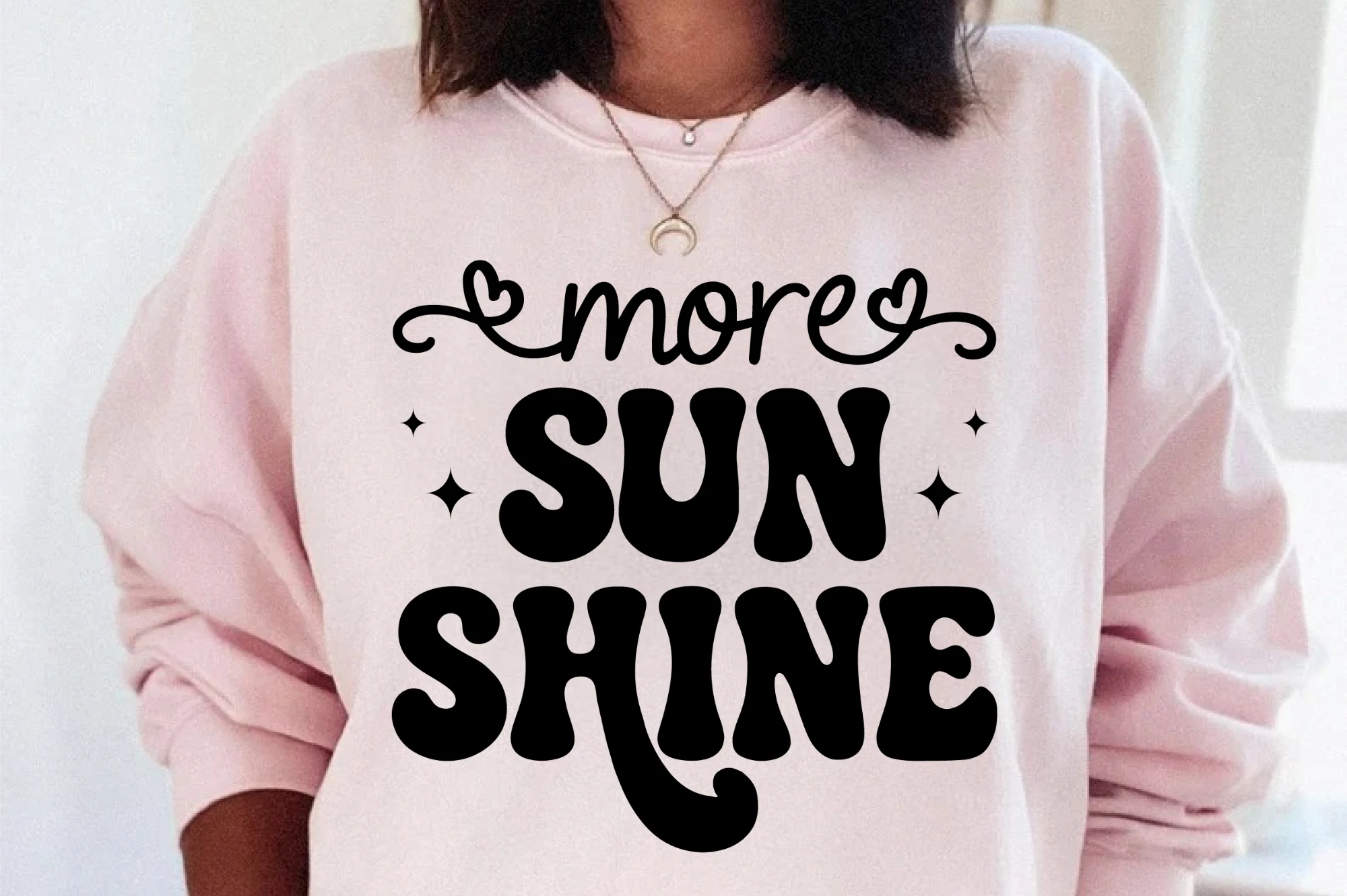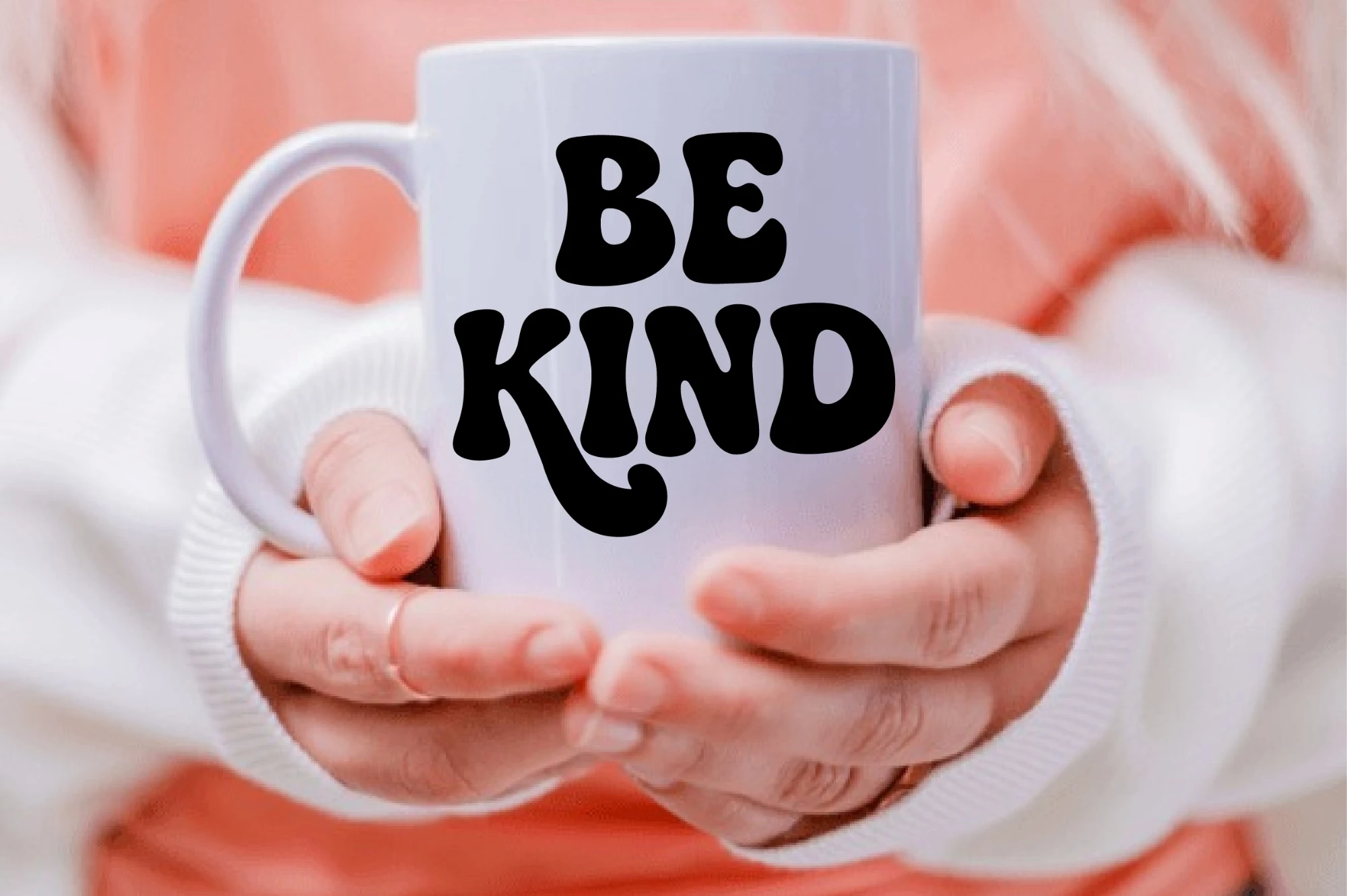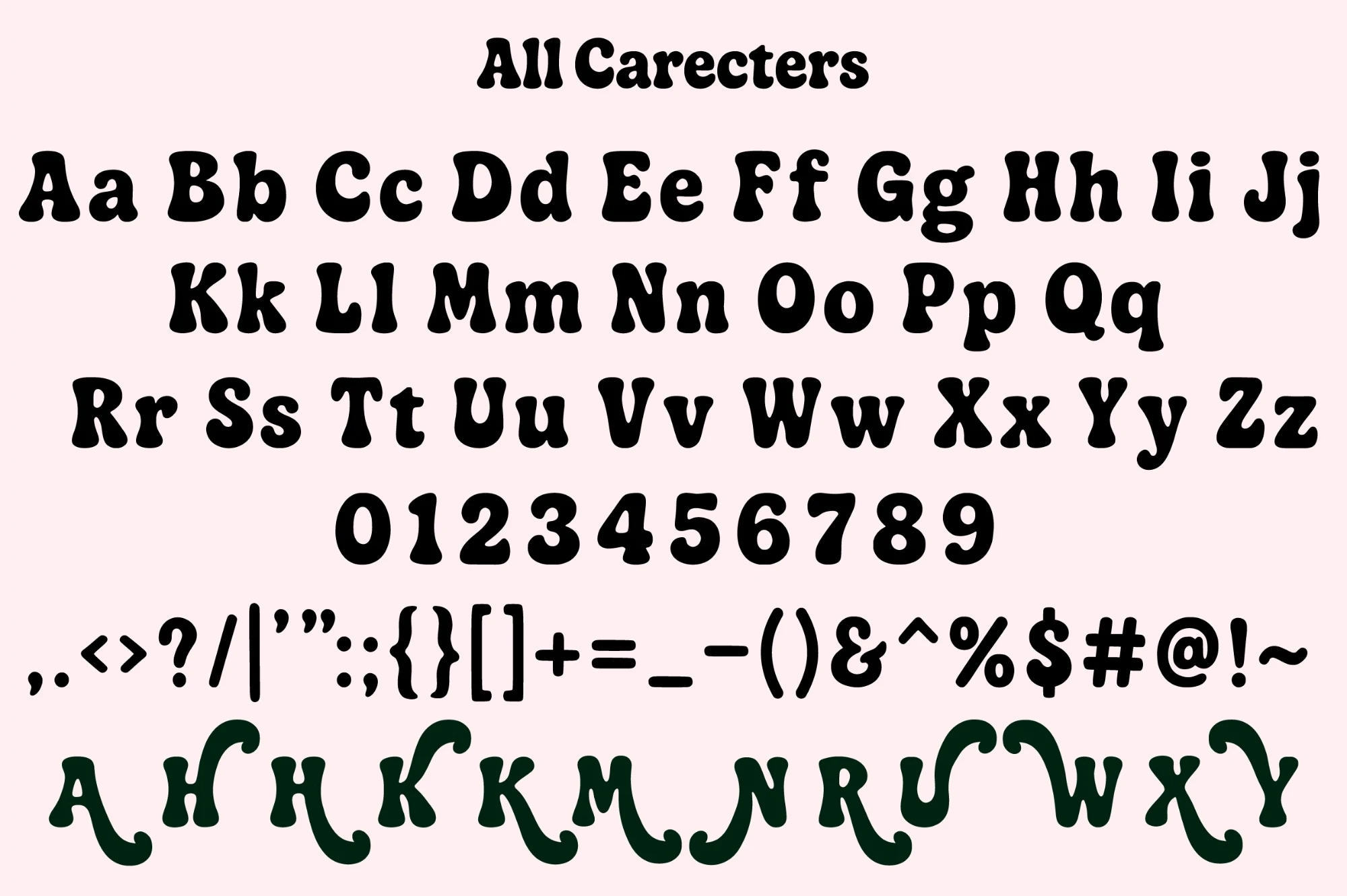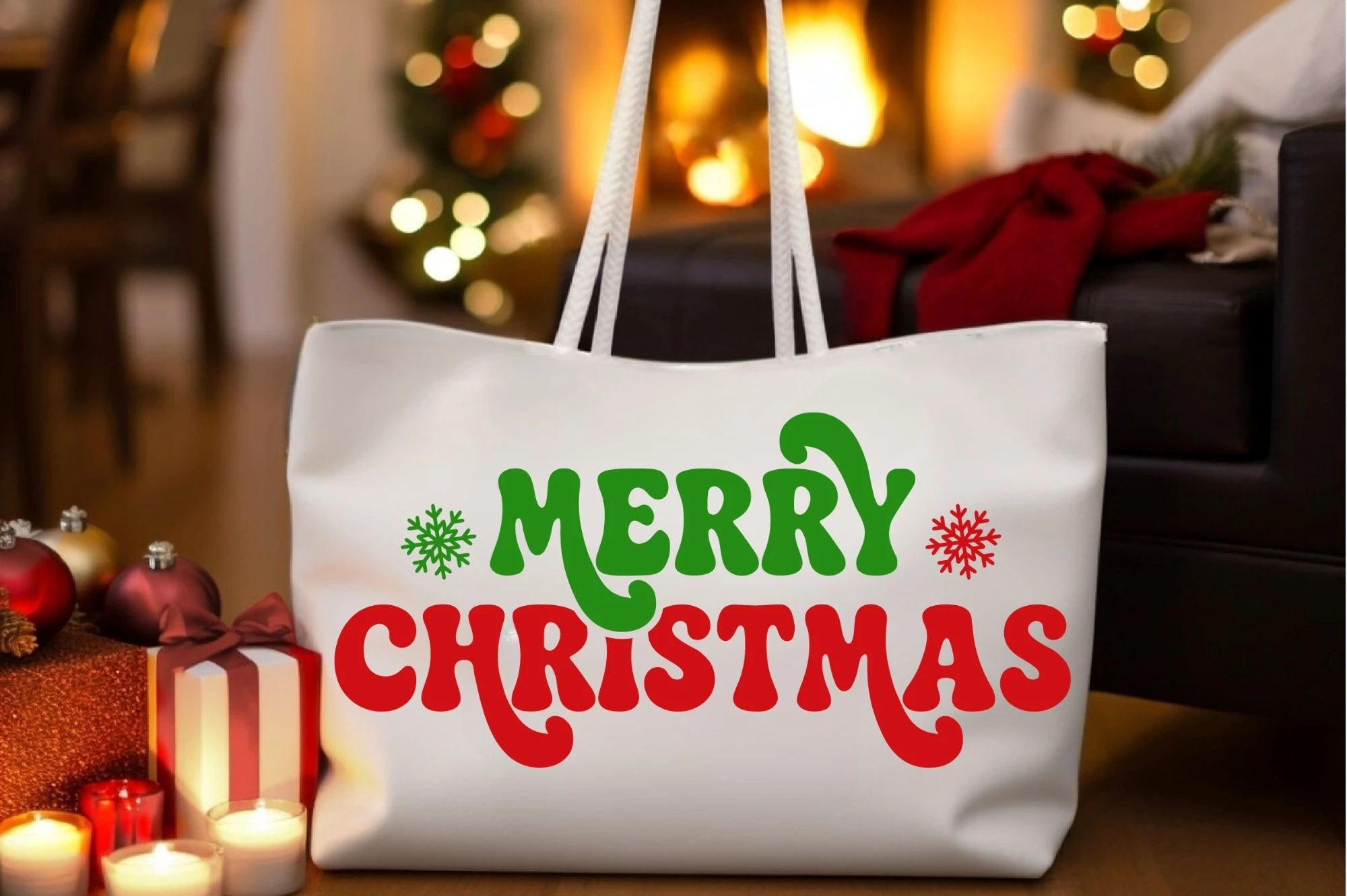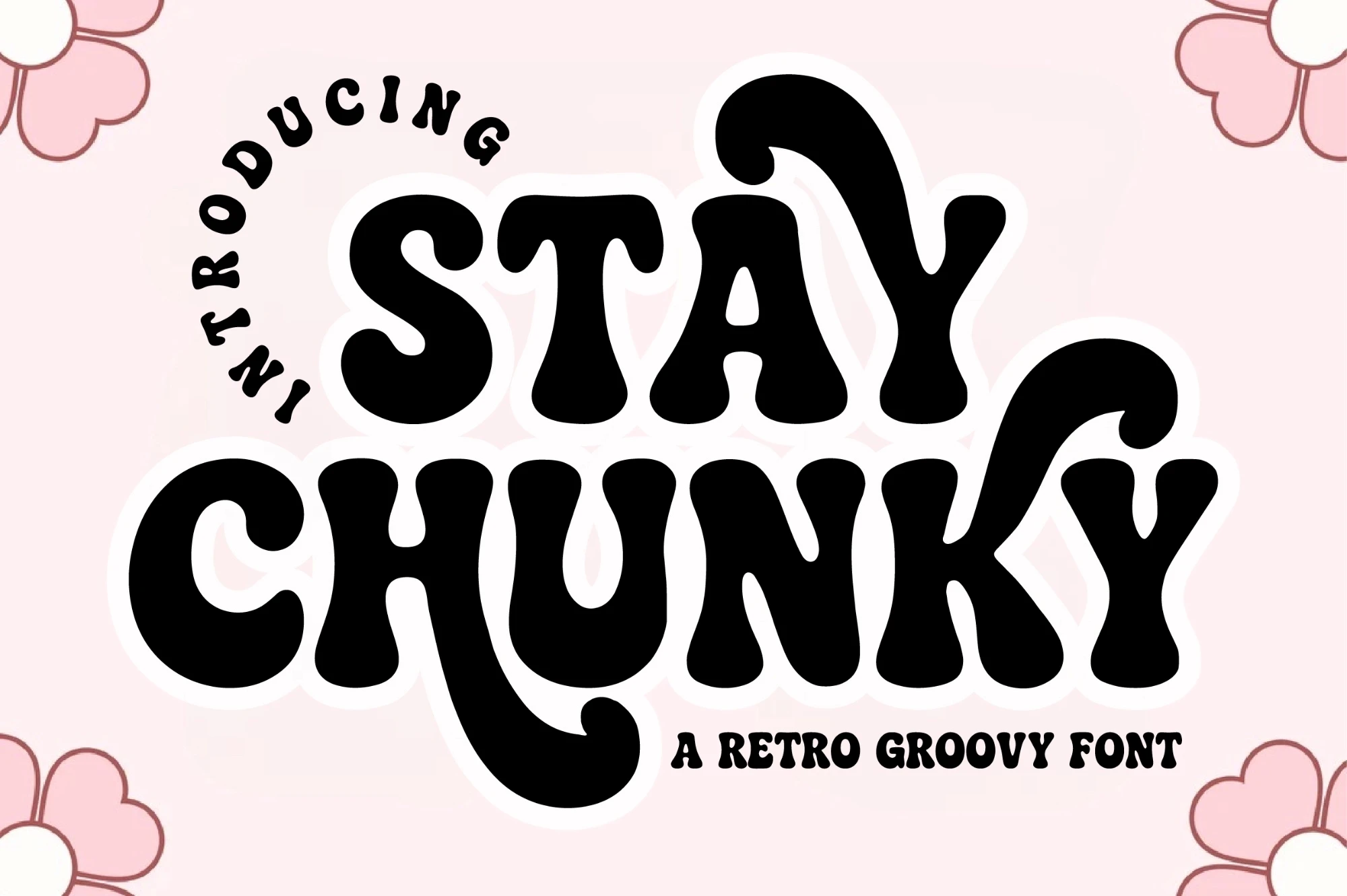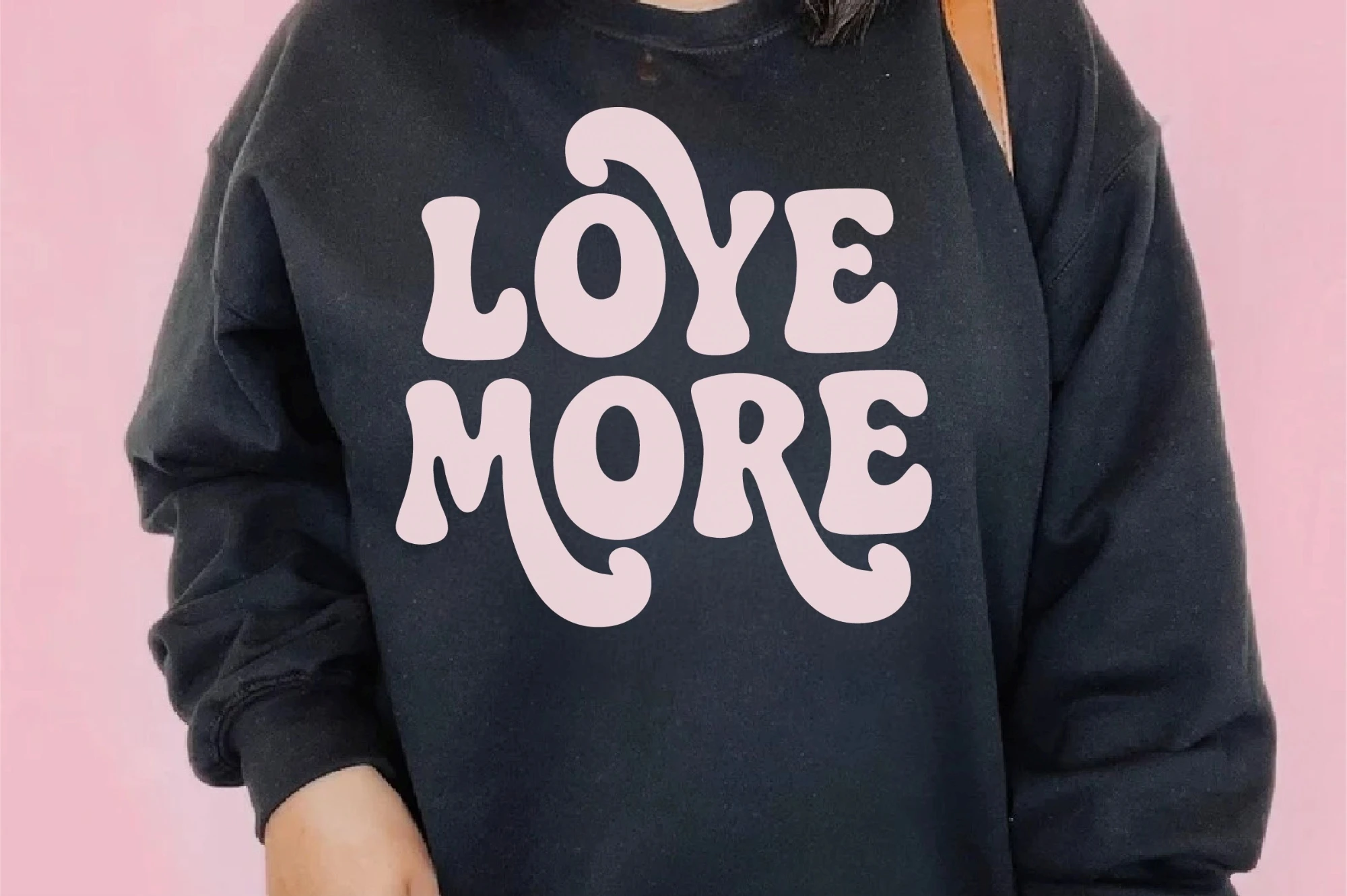
Bring a bold, bubbly, and nostalgic vibe to your designs with Stay Chunky, a playful retro groovy font inspired by 70s letterforms. Its thick curves, smooth edges, and fun swashes make it perfect for eye-catching quotes, shirts, stickers, posters, branding, and more.
This font includes uppercase, lowercase, numbers, punctuation, and unique stylistic alternates to help you create standout artwork with a vintage flair.
Perfect for designers who love bold, cheerful, and aesthetic retro styles.
This font includes uppercase, lowercase, numbers, punctuation, and unique stylistic alternates to help you create standout artwork with a vintage flair.
Perfect for designers who love bold, cheerful, and aesthetic retro styles.
Stay Chunky Font